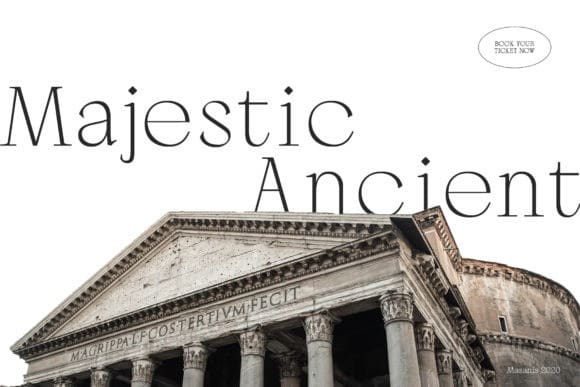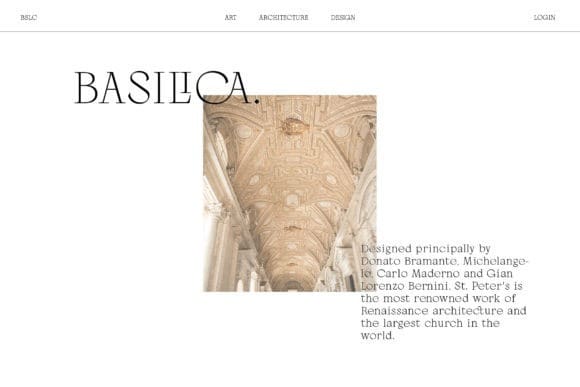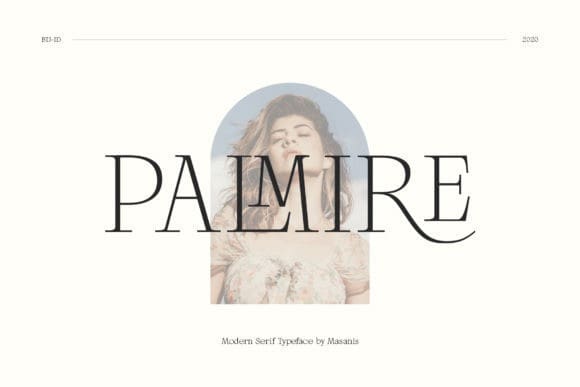
Palmire Font
Palmire Font is a modern serif font carefully created with a touch of elegance. Whether you’re looking for fonts for Instagram or calligraphy scripts for DIY projects, this font will turn any creative idea into a true piece of art!